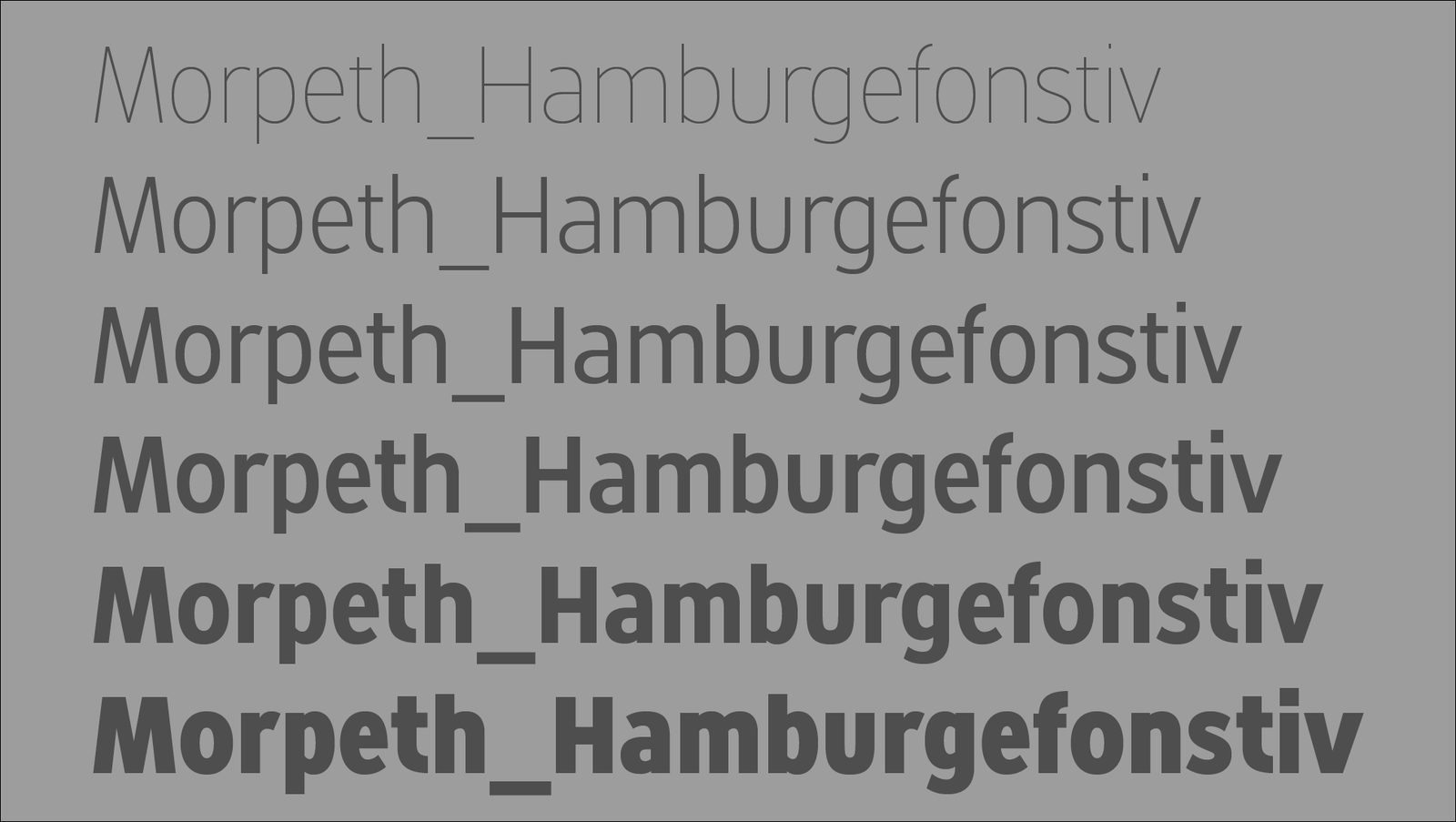
Morpeth
Morpeth is a hard working condensed sans serif font originally designed for Morpeth Borough’s wayfinding system and thus eminently usable for signage purposes.
Open counters and a generous x-height contribute to Morpeth’s excellent legibility.
This font is clean and functional but more than adequately accessorized; the 6 weight OpenType family includes discretionary ligatures, small caps, 4 sets of numerals plus coverage for Central European, Baltic and Turkish languages.
Morpeth’s width and short descenders makes it perfect for sub-heads & body text whenever word count, copyfitting and space is an issue.
hard working sans serif
Morpeth contains an extended Latin character set with small caps, standard & discretionary ligatures plus 4 sets of figures.
OpenType Features
• • Standard & discretionary ligatures
• • Small caps
• • Stylistic alternates
• • Contextual alternates
• • Tabular & proportional figures
• • Old style & lining figures
• • Fractions
• • Superiors
• • Ordinals